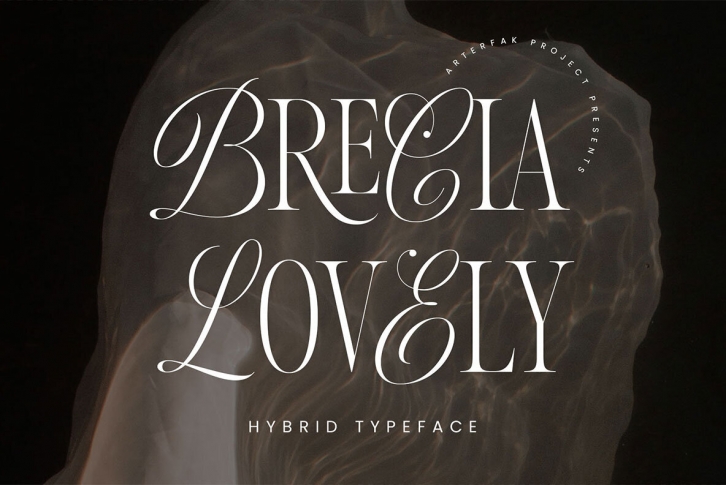
Introducing Brecia Lovely, an innovative hybrid font combining script (uppercase) and slim serif (lowercase) styles. Featuring beautiful ligatures and special characters, it adds a dynamic, elegant, and luxurious touch to your designs. Ideal for posters, flyers, stories, magazines, blogs, editorials, titles, and displays, this classy font offers 50+ ligatures and 60+ alternates for creative flexibility.
Brecia Lovely includes:
- Symbols & punctuation
- Stylistic alternates